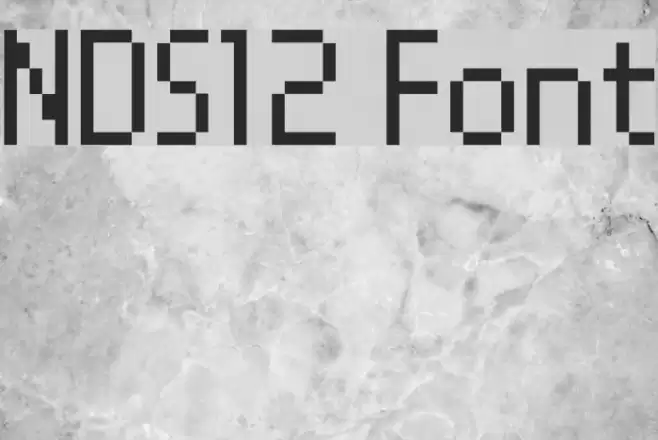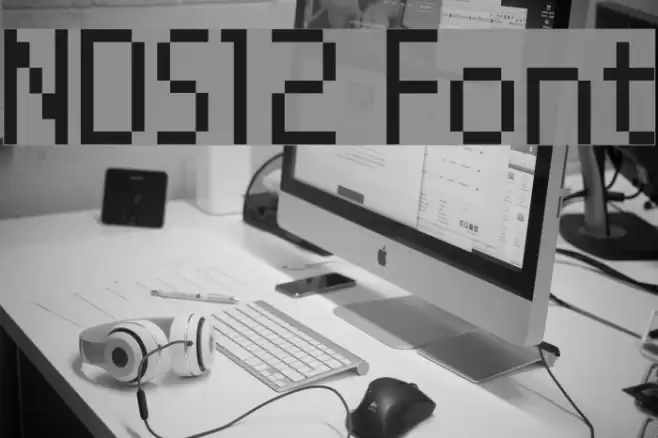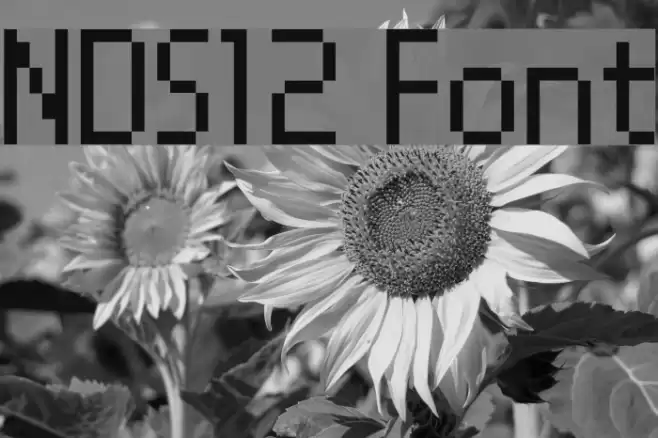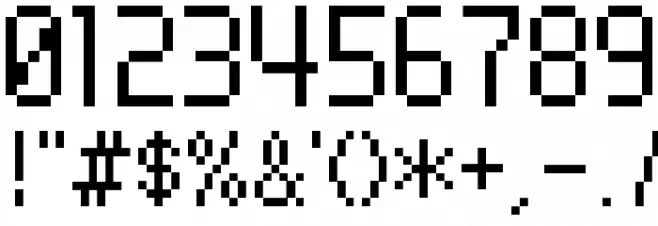
NDS12 Font
This font is a pixelated, monospaced typeface that evokes a retro, digital aesthetic reminiscent of early computer screens and video games. Each character is constructed with a grid-like precision, giving it a blocky and geometric appearance. The uppercase and lowercase letters maintain a consistent height, enhancing its uniformity and readability. The numerals and special characters are designed with the same pixelated style, ensuring a cohesive look across all text elements. This font's simplicity and clarity make it ideal for projects that aim to capture a nostalgic or tech-inspired feel.
A pixelated, monospaced typeface with a retro digital aesthetic from Uncategorized fonts.
- Proposed Projects: Ideal for retro video games, digital art projects, tech-themed designs, and any creative work that requires a nostalgic or digital look.
- Overall Style: Retro, Digital
- Use Case: Headlines, Logos, Digital displays